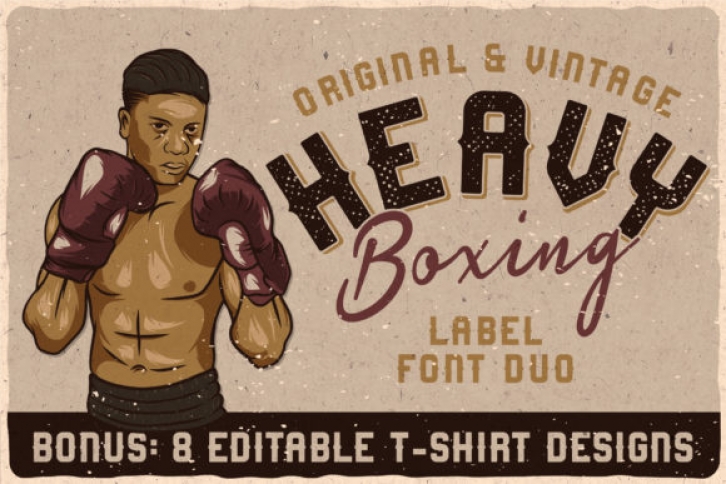
Heavy Boxing is a stylish and incredibly unique duo font (display and script).It has an original vibe and it creates lovely designs, so add it confidently and you won’t be disappointed.